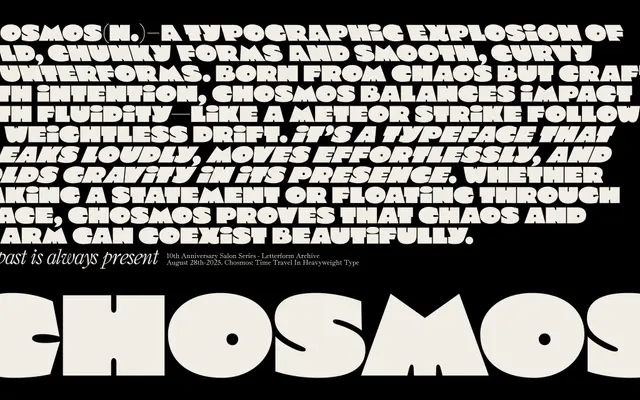
Chosmos
Typozon · Cristian Vargas · 2025
A three-style display family with chunky, organic forms available in Regular, Slant and Backslant cuts, designed for headlines and bold identity work.
Designed by Cristian Vargas at Typozon and released in April 2025, Chosmos pairs heavy weight with curvy counterforms to offset its impact. The three styles — Backslant, Regular and Slant — provide directional contrast for dynamic typographic layouts, particularly effective with tight or negative tracking. It targets branding, packaging, editorial, sports and music contexts where a strong, rhythmic presence is required.
A chunky, organic display typeface with no serifs and strongly expressive, curved counterforms. The three angled styles (Backslant, Regular, Slant) position it firmly as a display type with no body-text intent.